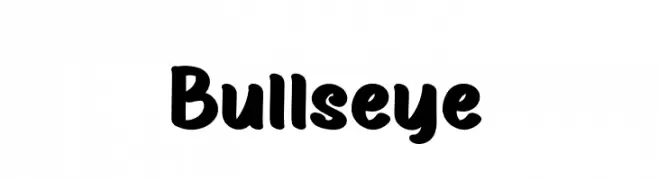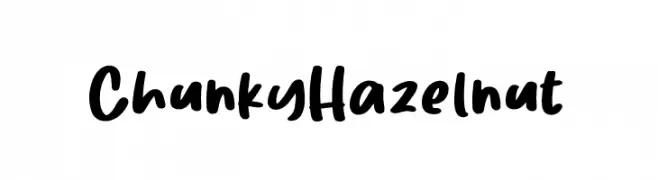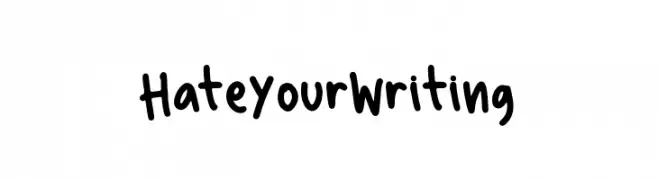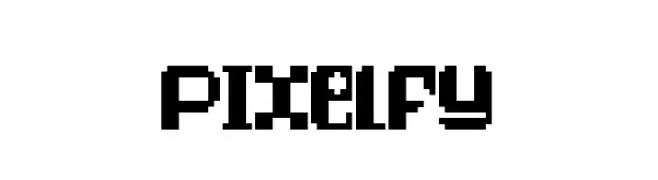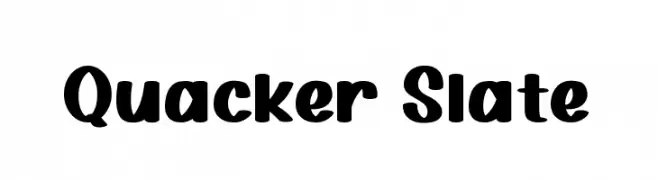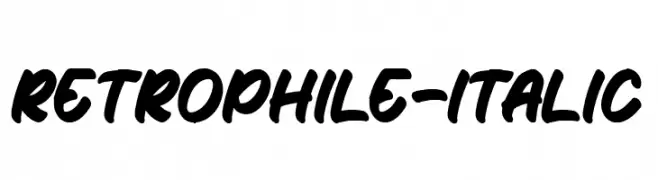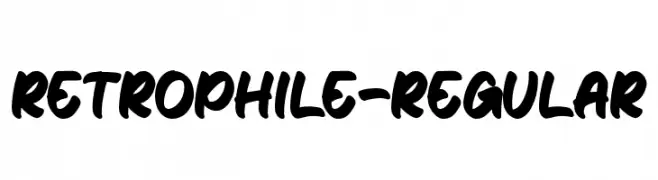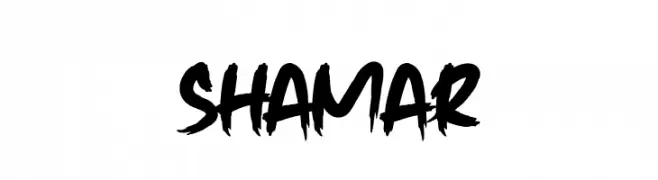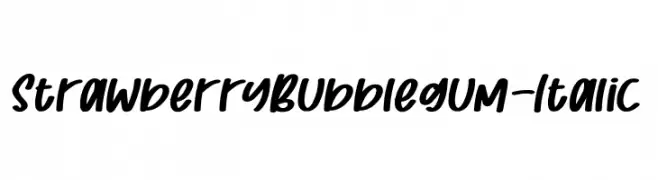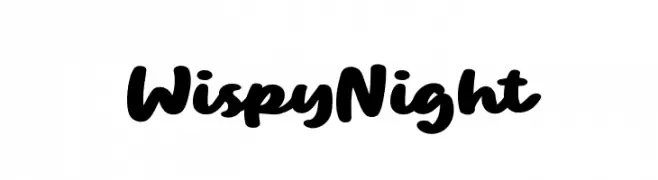
A bold, playful handwritten font with rounded, slanted letters.
A bold, italicized font with rounded strokes and a dynamic, playful style.
A bold, brush-style font with dynamic and expressive strokes.
A bold, playful script font with rounded strokes and a dynamic slant.
A bold, handwritten italic font with a playful and energetic style.
A bold, rounded font with a playful and friendly style.
A playful, handwritten font with bold, irregular strokes.
A bold, playful font with rounded strokes and a whimsical style.
A bold, pixelated font with a retro digital aesthetic.
A bold, playful script font with smooth, rounded edges and consistent stroke width.